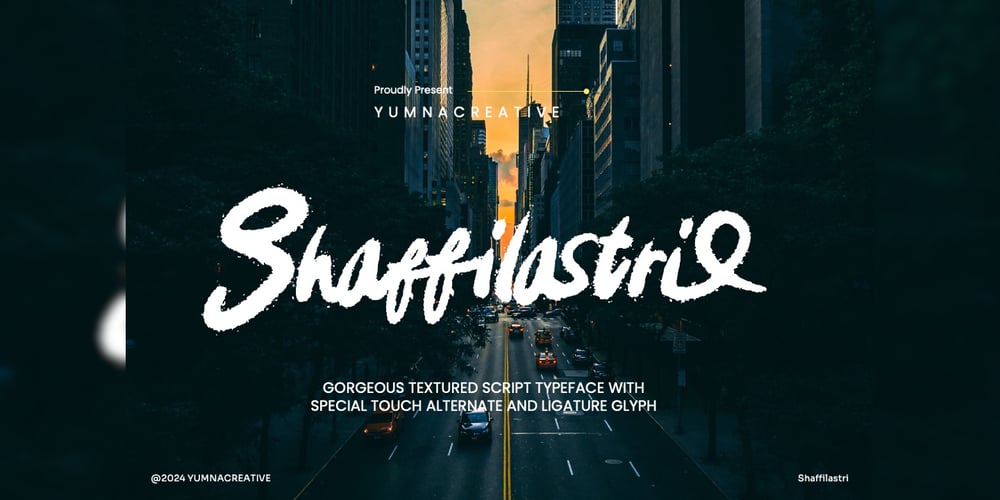
Shaffilastri
Shaffilastri font
Shaffilastri Font Family was designed by Dhimas Habibie and published by Yumnacreative. Shaffilastri contains 1 styles and family package options. Introducing Shaffilastri – Textured Script FontThis Font is a delicate, elegant and flowing handwritten font. It has beautiful and well as a unique blend of ligatures a letter, so that the authors compose it with a and little swirly embedding, so that a modern font is formed and ready to make a statement by adding elegant and unique flair to your next design project. Add it to your most creative ideas and notice how it makes them come alive!FEATURES- Uppercase and Lowercase letters- alternate and ligature- Numbering and Punctuations- Multilingual Supports- Works on PC or Mac- Simple Installation- Support Adobe Illustrator, Adobe Photoshop, Adobe InDesign, also works on Microsoft WordHope you Like it.Thanks.